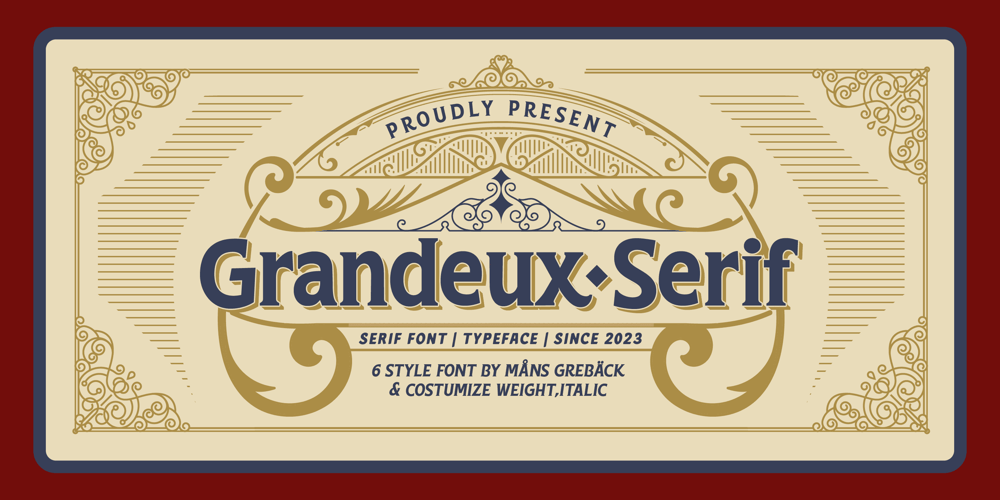
Grandeux Serif Font Family was designed by Måns Grebäck and published by Mans Greback. Grandeux Serif contains 6 styles and family package options. Grandeux Serif is a classic Victorian-inspired font that exudes vintage elegance and sophistication. Its distinct vintage style makes it perfect for adverts, restaurant branding, and other high-end design projects that require a touch of luxury and refinement.The font’s heavy strokes and high-quality craftsmanship give it a strong presence, while its intricate details and stylistic alternates allow for a truly customized and unique typographical experience. The Grandeux Serif font family includes six high-quality styles to suit various design needs:Light: Delicate and sophisticated for a subtle, elegant presenceLight Italic: Adds a touch of dynamic flair to the light styleRegular: A well-balanced, classic look for versatile useRegular Italic: Combines the versatility of regular with a touch of expressivenessBold: A strong, assertive style for impactful designsBold Italic: Merges the boldness of the bold style with the energy of italicThe font is built with advanced OpenType functionality and has a guaranteed top-notch quality, containing stylistic and contextual alternates, ligatures and more features; all to give you full control and customizability.It has extensive lingual support, covering all Latin-based languages, from Northern Europe to South Africa, from America to South-East Asia.It contains all characters and symbols you’ll ever need, including all punctuation and numbers.